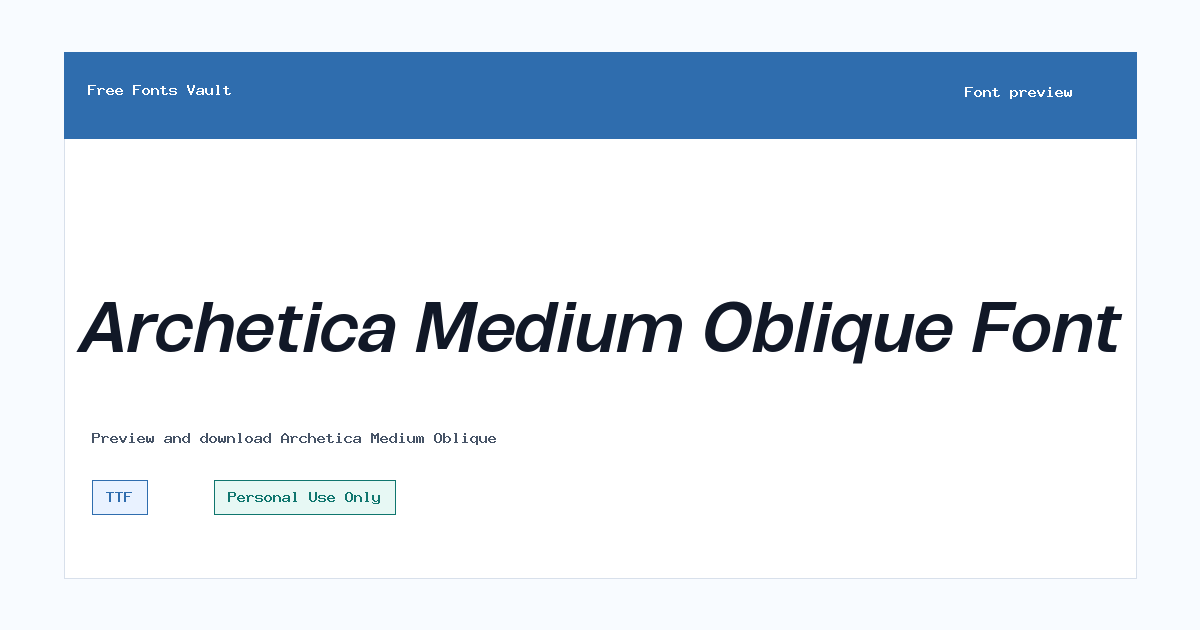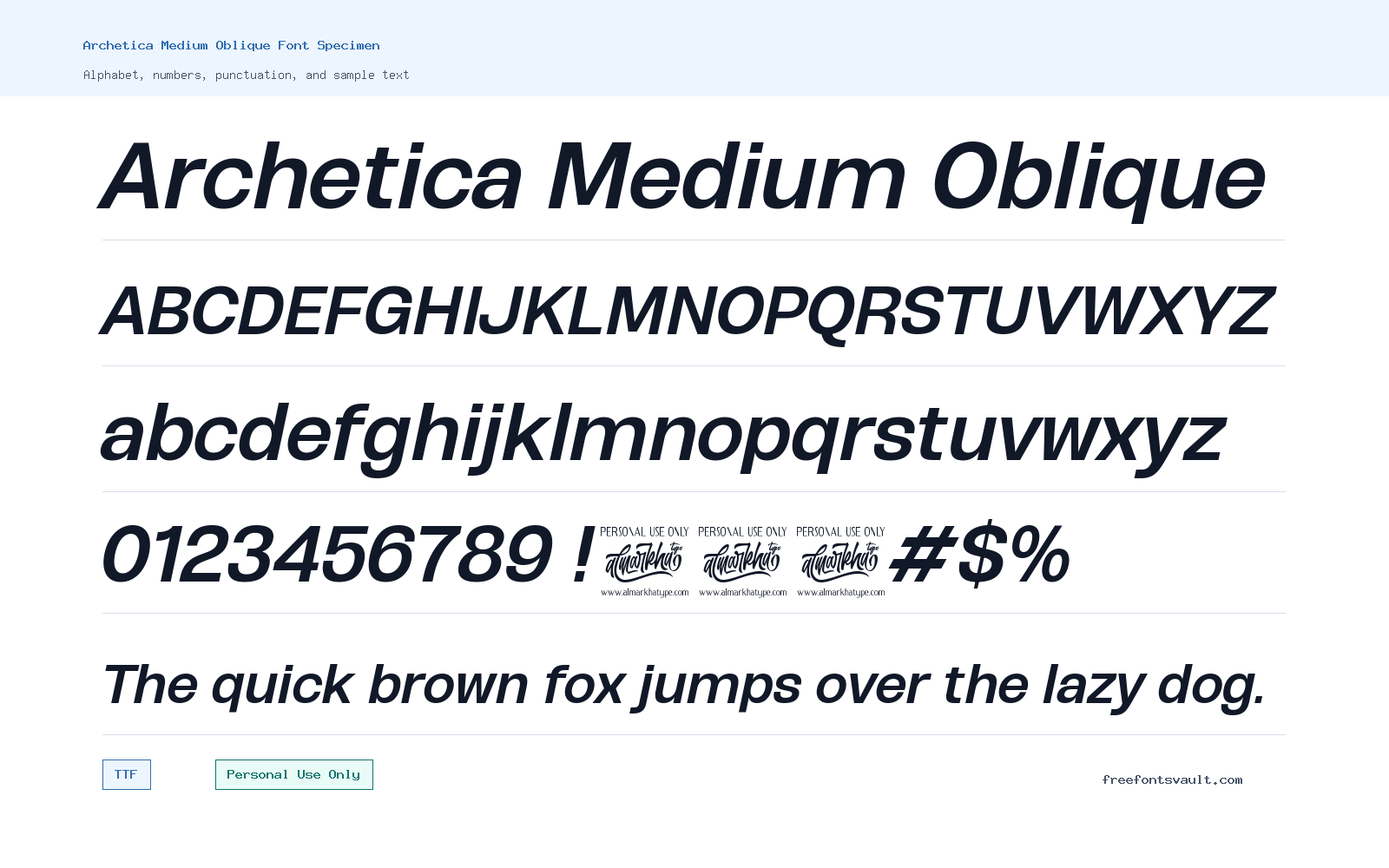
Archetica Medium Oblique
Archetica Medium Oblique is a medium-weight italic sans serif font from Almarkhatype. It has a slanted, modern look that can add movement to short headings, logo drafts, posters, and layout mockups.
Archetica Medium Oblique is the oblique style of the Archetica family name shown for this font page. The font files are available in TTF and OTF formats, with a 500 weight and italic styling. That means it sits between light and bold weights, giving text more presence than a regular book style without becoming too heavy. The oblique angle gives words a forward-leaning feel, so it works best where you want a clean sans serif voice with a little energy.
• Medium 500 weight with italic/oblique styling for a clean forward-leaning appearance
• Sans serif style suited to short display text, interface mockups, and branding tests
• Useful for emphasis when paired with an upright text font
• Logo concepts and brand-name studies where a slanted sans serif feels appropriate
• Poster titles, event graphics, and social media headings
• Web mockups, landing page hero text, and navigation emphasis
• Packaging drafts, label typography, and presentation layouts
• Short quotes, callouts, and editorial display accents
Archetica Medium Oblique is credited to Ridwan Fadilah & Malik Wisnu, with Almarkhatype listed as the foundry.
For best results, try Archetica Medium Oblique in short lines first. Increase letter spacing slightly for all-caps titles if the words feel tight, and check smaller sizes carefully because slanted forms can lose clarity faster than upright text. In logo work, test the font in black and white before adding color or effects. For posters and web mockups, pair it with a neutral upright sans serif for body copy so the oblique style stays noticeable without overwhelming the layout.
What kind of font is Archetica Medium Oblique?
It is a sans serif font in a medium 500 weight with italic/oblique styling. Its slanted form makes it better for short display text and emphasis than long reading passages.
Who designed Archetica Medium Oblique?
The font is credited to Ridwan Fadilah & Malik Wisnu, and the foundry is listed as Almarkhatype.
What fonts pair well with Archetica Medium Oblique?
Pair it with a calm upright sans serif for body text, interface copy, or captions. If you want more contrast, use it with a readable serif for paragraphs and keep Archetica Medium Oblique for headings or accents.